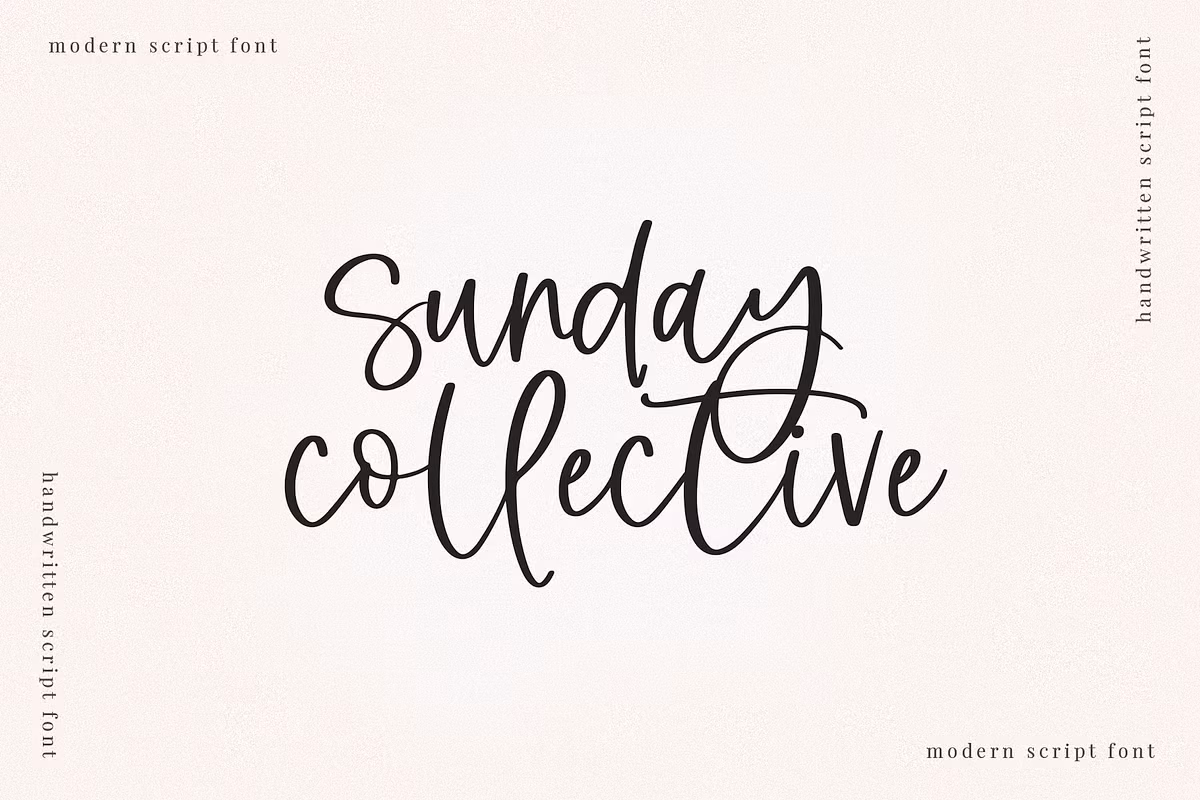
The Sunday Collective | Script Font Free Download is an elegant and stylish handwritten script font designed to add a personal, artistic touch to your designs. Featuring flowing, cursive letterforms with a modern and sophisticated flair, this font is perfect for creating beautiful logos, invitations, branding, and social media graphics. Whether you’re designing for a wedding, a creative brand, or a personal project, Sunday Collective brings a charming, refined vibe to your work.
Sunday Collective | Script Font Free Download is ideal for designers looking to add a stylish, handwritten script to their typography. Perfect for upscale branding, invitations, or creative content, this font will elevate your designs with its elegant and artistic style. Download it today and infuse your creative work with the timeless beauty of Sunday Collective!